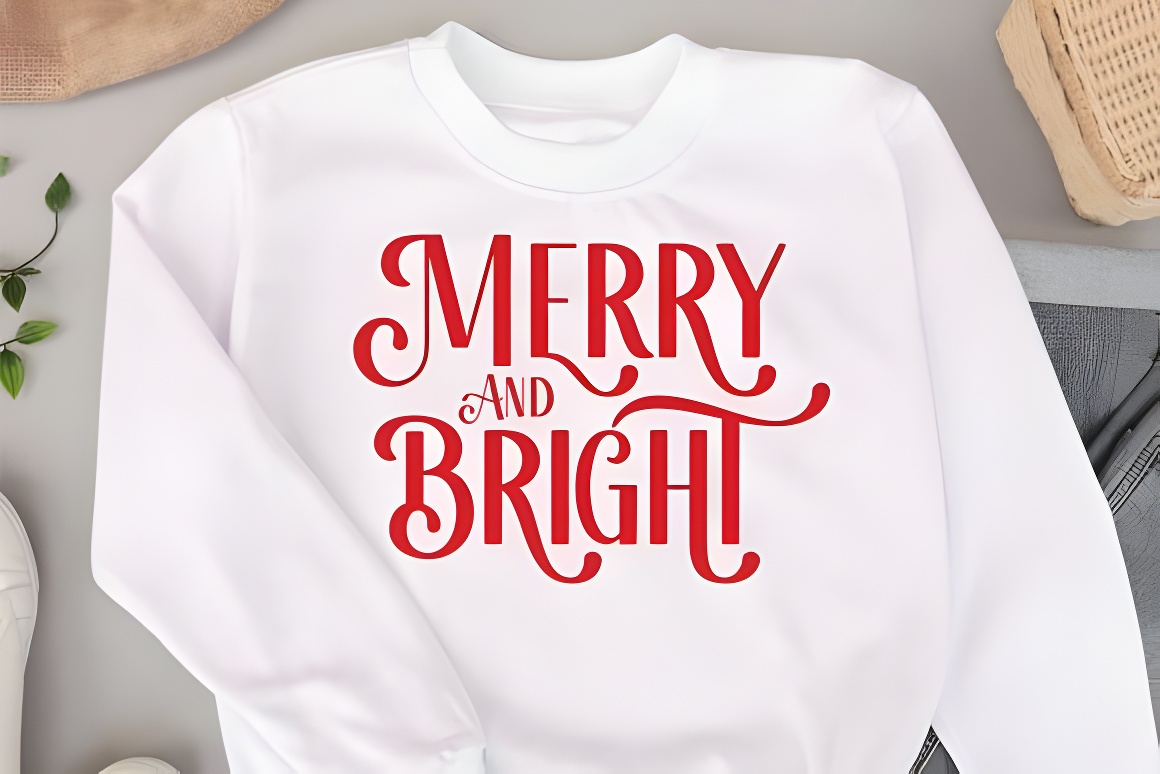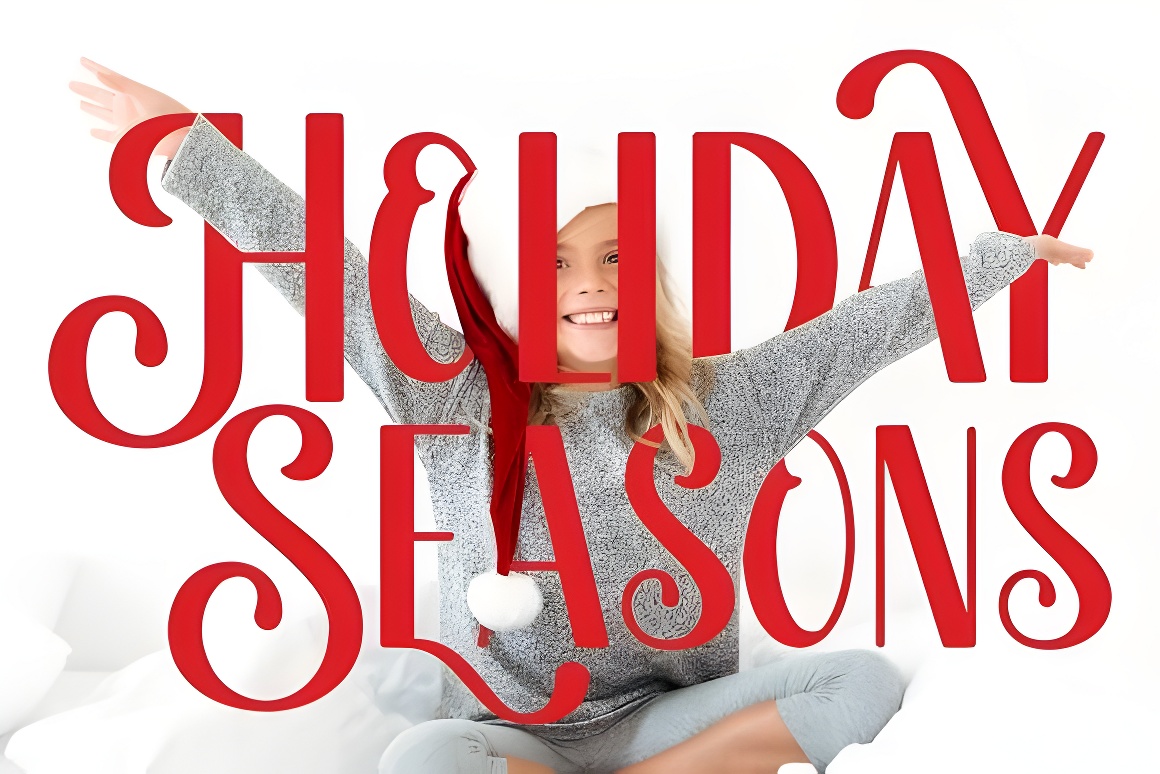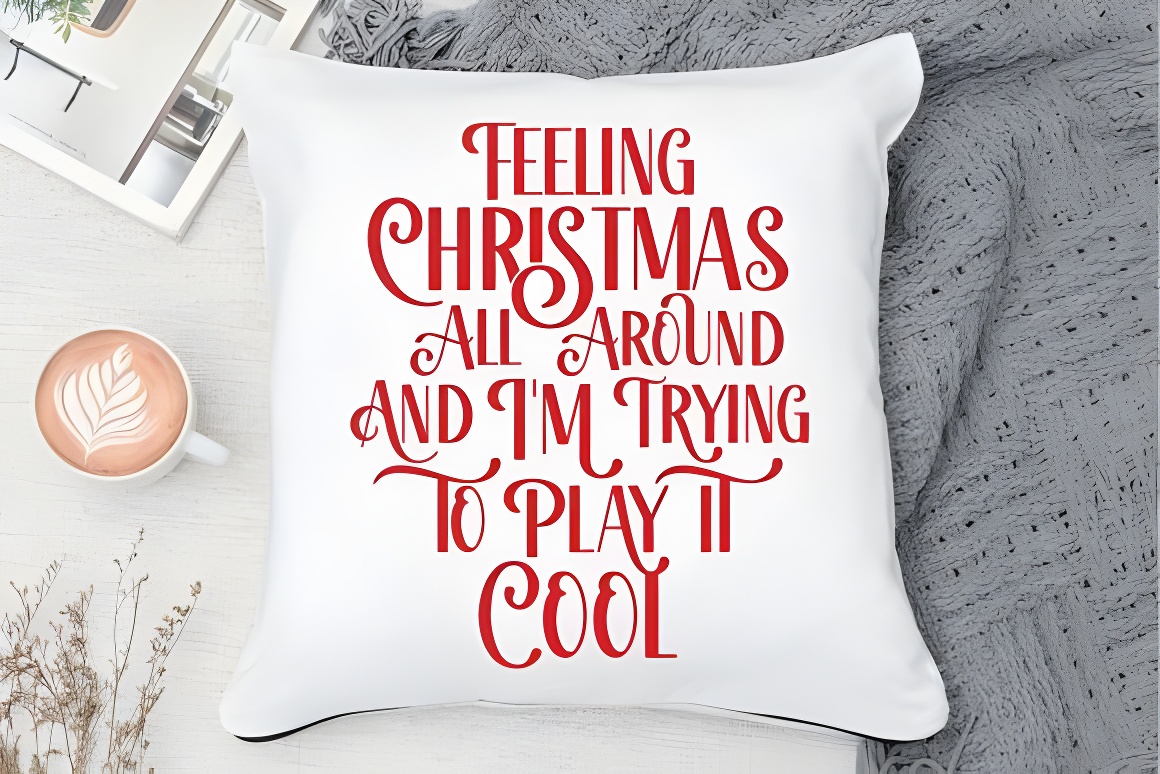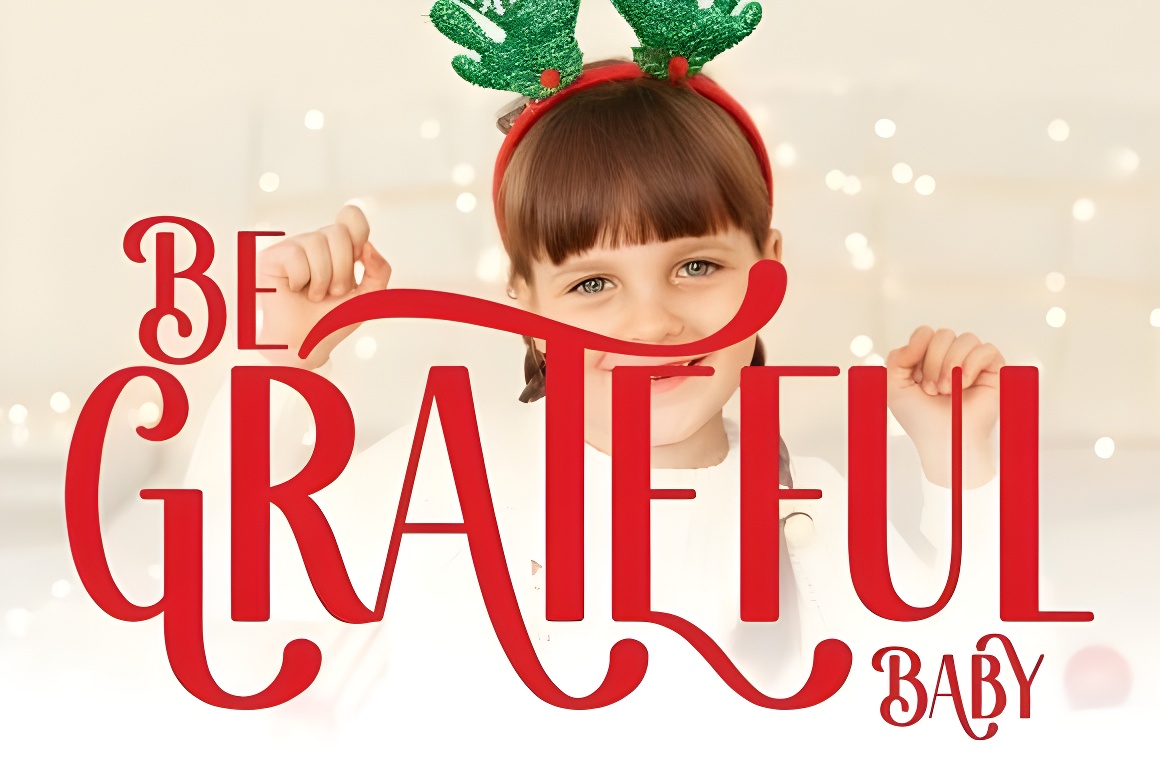
Dancing Christmas Font: Elegant Handwritten Holiday Typeface Elegant handwritten Christmas font with fluid strokes, perfect for festive greeting cards, invitations, and holiday designs. Adds timeless sophistication to your seasonal projects.